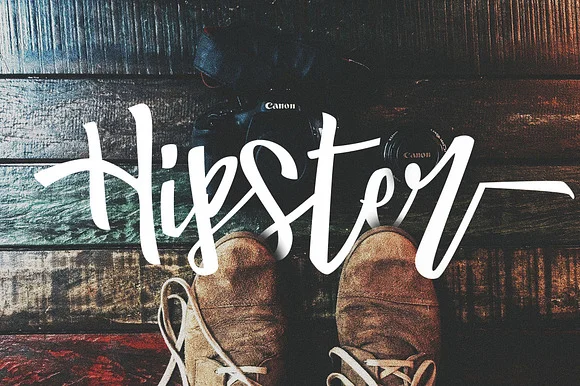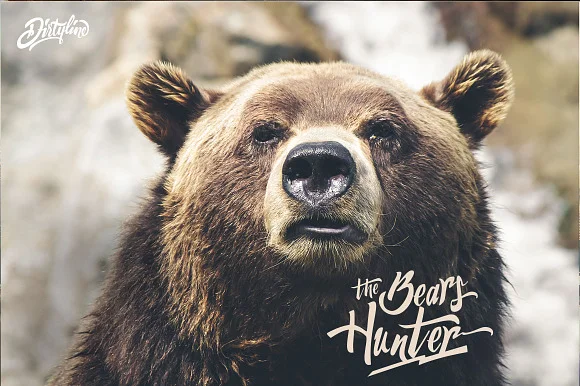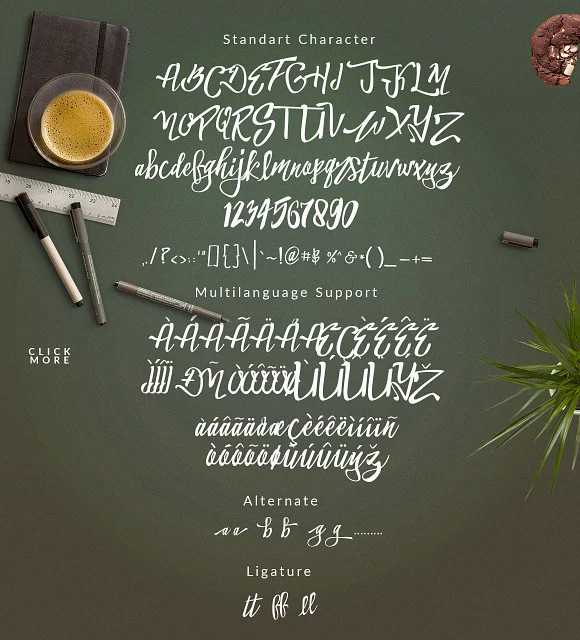
Stay High + Swash Font
Typography shapes perception at a subconscious level. Stay High + Swash leverages versatility across print and screen contexts to make every composition feel considered. The typeface brings an elegant, calligraphic sensibility to a broad range of creative disciplines, with visual harmony and precise spacing that holds up whether the work is print-first or screen-first.
In practice, Stay High + Swash proves particularly effective for logo design, feminine branding, event signage, perfume labels, social media graphics. Designers reaching for it find that the type decisions feel resolved rather than laboured — a useful quality when client timelines are tight.
The range of applications extends to beauty packaging, advertising campaigns, environmental graphics, web design. That breadth is deliberate: the proportions and spacing were stress-tested across a wide range of mock briefs before the typeface was finalised.
At smaller sizes the design retains its character without becoming cluttered. This resilience across scales makes Stay High + Swash equally suitable for a business card and a billboard — a useful property when assets must scale across a campaign.
Freelance designers across print and digital disciplines find Stay High + Swash a reliable choice for projects that demand both personality and restraint. The design avoids the self-conscious quirkiness that dates quickly, settling instead for considered distinctiveness that holds up over time.